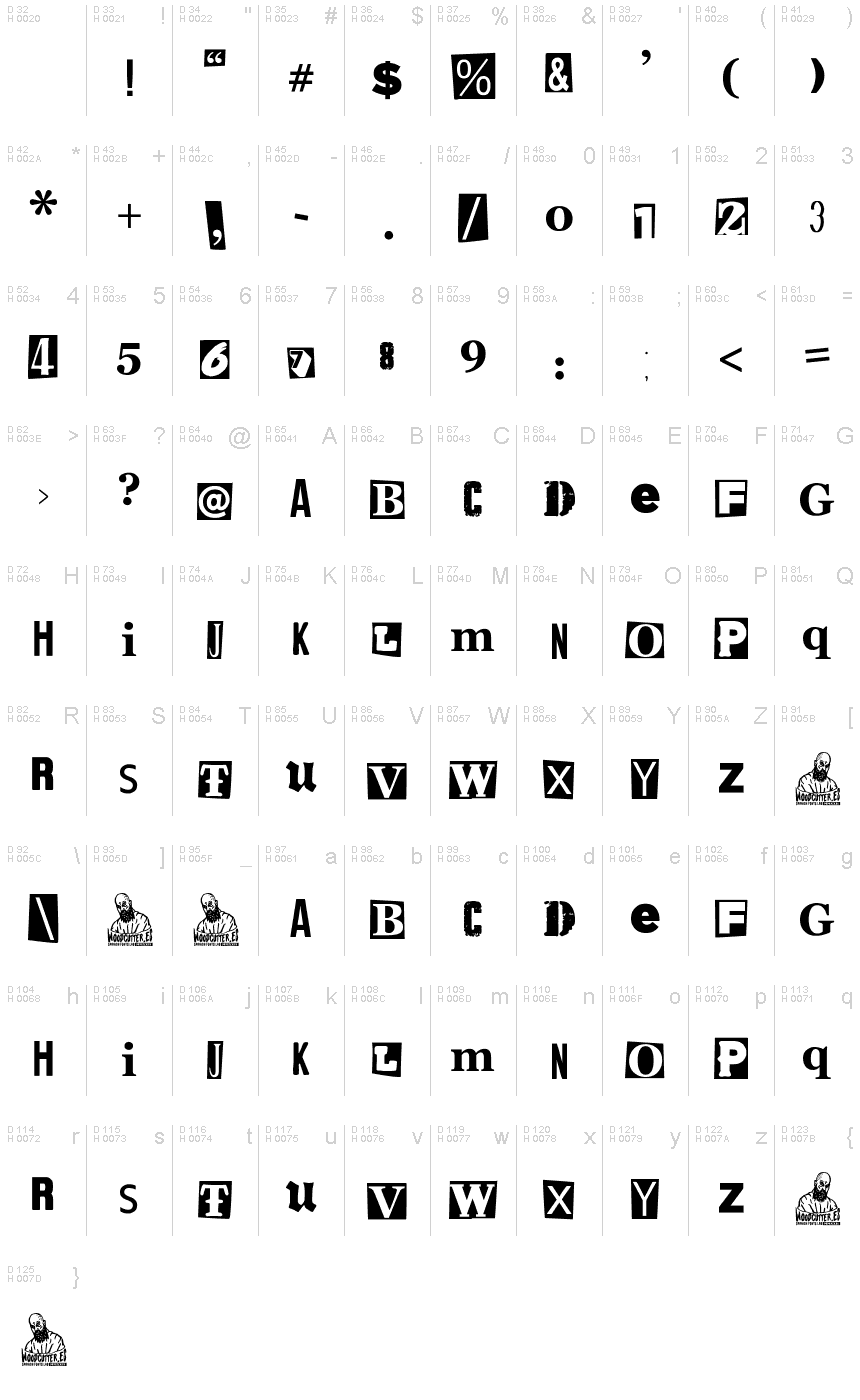
The Punk And The Godfather
The Punk And The Godfather font by Woodcutter is a bold, distorted, and eroded display typeface that exudes rebelliousness and raw energy. With its rugged edges and worn-out appearance, this font is perfect for projects seeking to capture the essence of punk rock culture or underground art movements.
It would be an ideal choice for album covers, gig posters, zines, or any design that needs a gritty and edgy aesthetic.